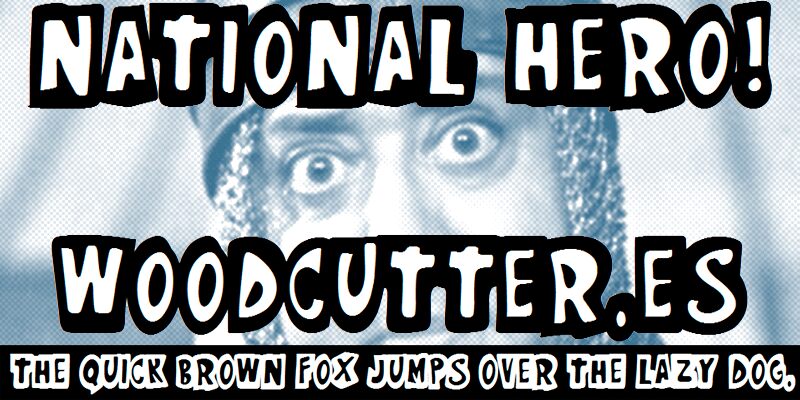
National Hero!
National Hero! font by Woodcutter is a bold cartoonish display font with a comic style. The retro-inspired typeface is expressive and fun for making impactful designs that immediately stand out to your audience. If you visually relate to nostalgic cartoon comics, this font is bound to grab your attention with its fun and exaggerated characters!
Being free, National Hero is perfect in branding projects, book titles, stationery ideas (such as business cards), posters, signs, invitations, headlines, storyboards presentations/drawings. It might also work for more serious graphic-heavy websites like news outlets trying to visually present the information in an engaging way while using this beautiful character set as part of their graphical elements toolkit!